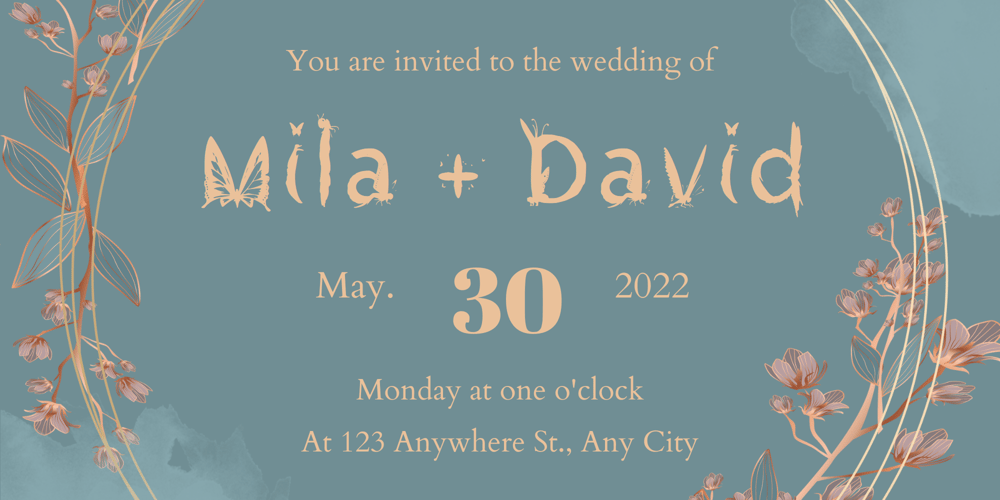
Terra Butterfly Font Family was designed by Lena Zus and published by TerraType. Terra Butterfly contains 1 styles and family package options. Introducing the enchanting TerraButterfly Font, a masterpiece of typography crafted from delicate butterflies. Perfect for wedding invitations, names, titles, and more, this font adds a touch of elegance to any project. Its design is both beautiful and gentle, capturing the playful essence of butterflies in every letter. Released in July 2024, the Butterfly Font is absolutely unique, making it the ideal choice for those looking to infuse their designs with a magical, one-of-a-kind charm.